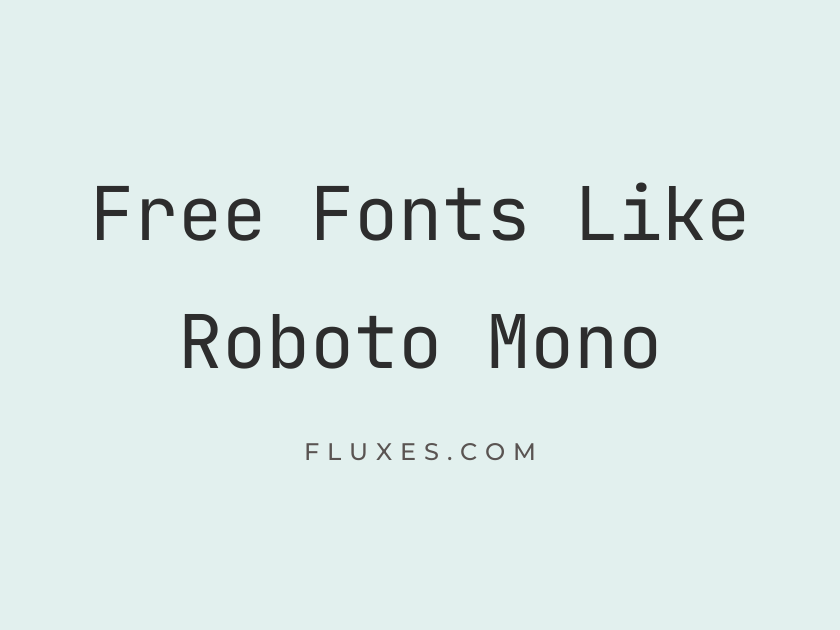
15 Best Free Fonts Similar to Roboto Mono
Roboto Mono has become the default typeface for code editors, terminal themes, and technical documentation, but its geometric evenness and slightly narrow proportions are not the only way to render fixed-width text. Google Fonts has a deep bench of monospace families that share Roboto Mono’s clarity while offering their own personality, from humanist warmth to retro terminal grit. Whether you are building a developer portfolio, styling a code block on a blog, or just want a fresh monospace for your IDE, there are free alternatives that hold up at both display size and six-point line height.
The families below cover a range of moods: some are clinical and grid-perfect like Roboto Mono itself, others lean into a more mechanical or typewriter-inspired feel. All are free to download and use on Google Fonts, and all handle the punctuation-heavy, character-distinguishing demands of code typography.
1. JetBrains Mono
Built by a company that makes developer tools, JetBrains Mono was designed from the ground up for reading code for hours at a stretch. The letterforms are taller than average with a slight slant available in italics, which helps distinguish easily confused characters like 1, l, and I.
It is a natural first stop for anyone who wants a Roboto Mono alternative that was engineered with the same use case in mind rather than adapted from a display family.
2. IBM Plex Mono
Part of IBM’s sprawling Plex superfamily